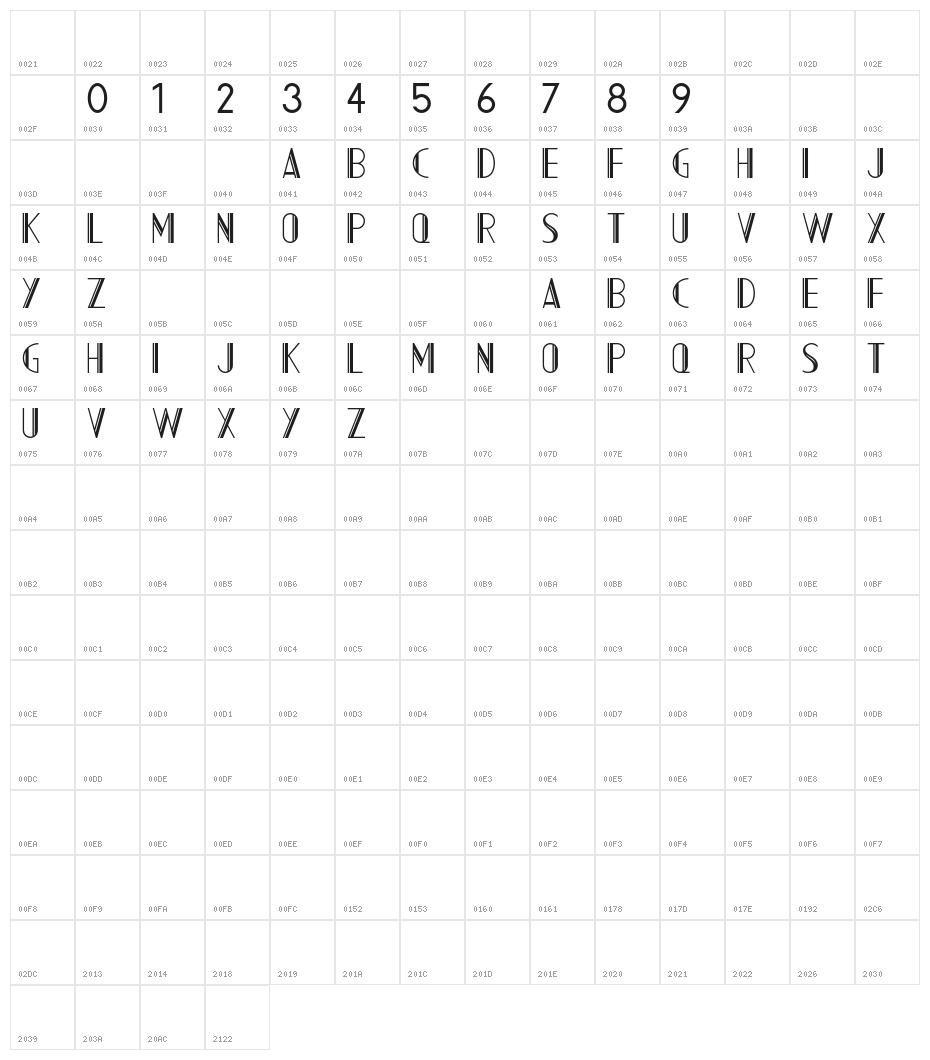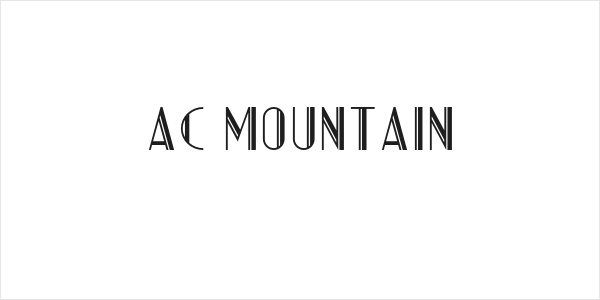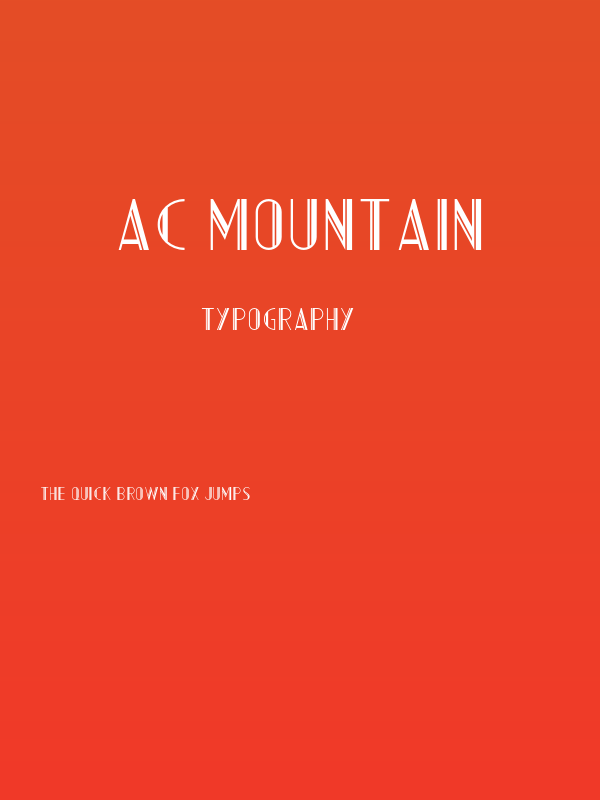
AC Mountain Font
AC Mountain Description
This font features a modern and stylish design with a unique blend of geometric and art deco influences. The uppercase letters are characterized by clean, straight lines and sharp angles, creating a sense of elegance and sophistication. The lowercase letters maintain a consistent style, offering a harmonious balance between form and function. The numerals are bold and clear, ensuring readability while maintaining the overall aesthetic. The font's distinct style makes it suitable for a variety of creative projects, from branding to editorial design.